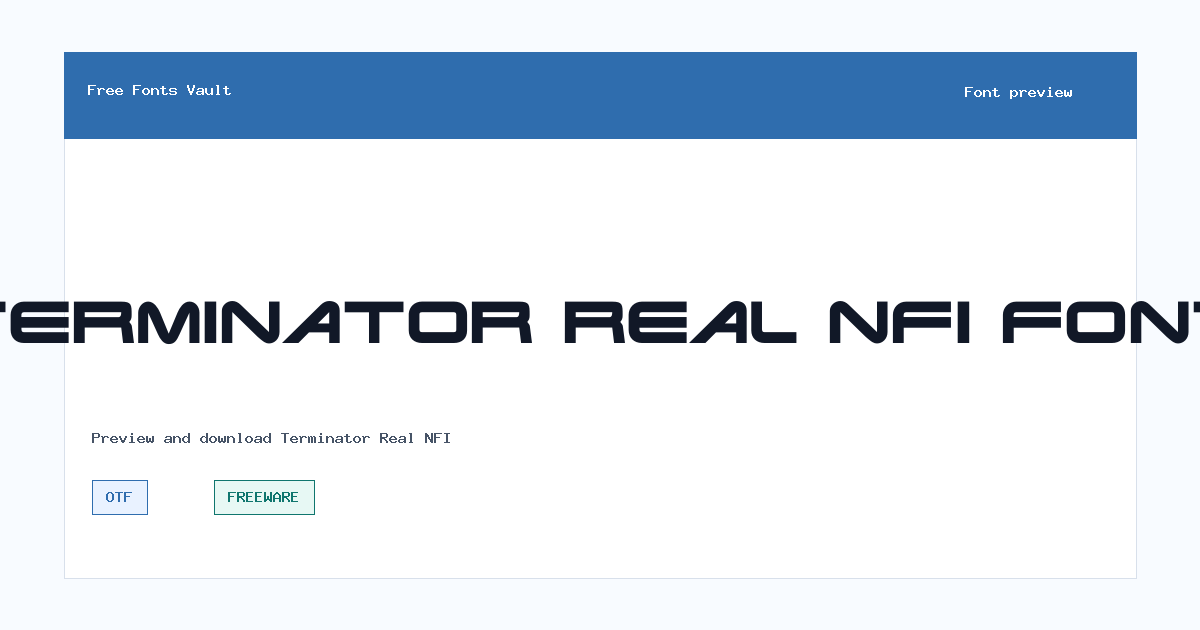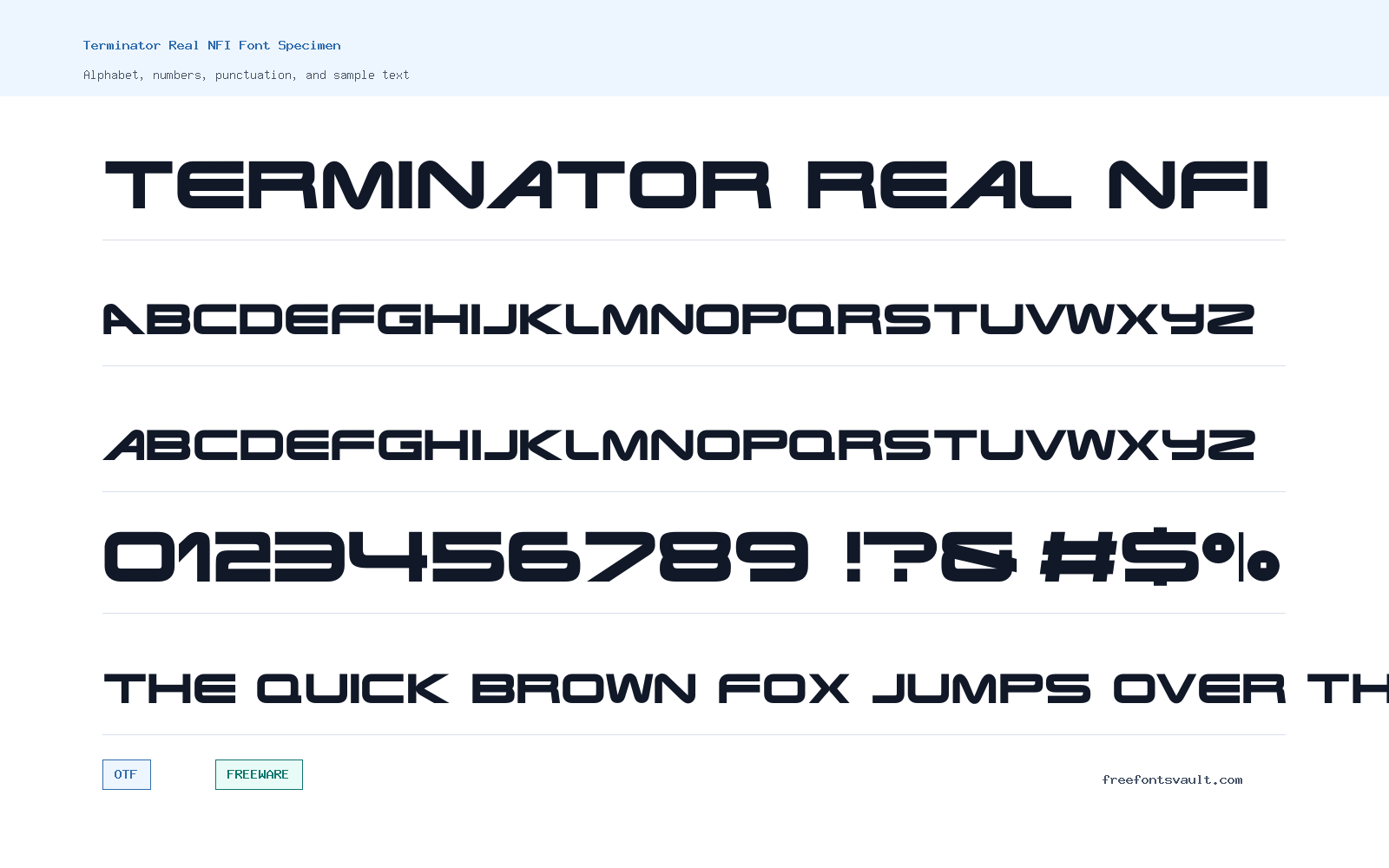
Terminator Real NFI
- Designer Thomas W. Otto
Terminator Real NFI is a bold, futuristic display font with wide letterforms, rounded cuts, and a strong screen-style look. It works best when you need short text to feel mechanical, sharp, and easy to notice.
About Terminator Real NFI
Terminator Real NFI uses heavy, extended characters with squared structure and rounded internal corners. The letters feel technical without becoming too complex, which makes the font useful for titles, logos, posters, thumbnails, game graphics, and other short display settings. It is not a quiet reading font; its strength is in large lettering where the shapes have room to show.
Use the preview box to test your exact wording before downloading. The font has a compact, horizontal feel, so short uppercase words usually look strongest. Longer names, small captions, and dense paragraphs may feel cramped or tiring. Try wider spacing for all-caps text, and pair it with a plain sans-serif for body copy so the display style stays clear.
The font has a cinematic science-fiction mood, so it works best when the surrounding design supports that tone. Metallic colors, high-contrast backgrounds, dark posters, video thumbnails, and game-inspired title cards can suit it well. For softer projects, the mechanical style may feel too aggressive, so compare it with a cleaner sans serif before choosing.
- Bold futuristic display style with extended letter shapes
- Sci-fi titles, game headers, posters, and digital-style graphics
- Short logos, YouTube thumbnails, banners, and bold wordmarks
Terminator Real NFI is credited to Thomas W. Otto, with norfok.com listed as the designer website.
Keep it large, short, and spaced with care. It is best used as a headline or graphic accent, while a simple sans-serif should handle paragraphs, navigation text, and small UI labels.
What kind of font is Terminator Real NFI?
It is a bold futuristic display font with wide, technical-looking letterforms made for short titles and graphic text.
Can I use Terminator Real NFI for body text?
It is not a good choice for long reading. Use it for headings or short words, then pair it with a clean text font for paragraphs.